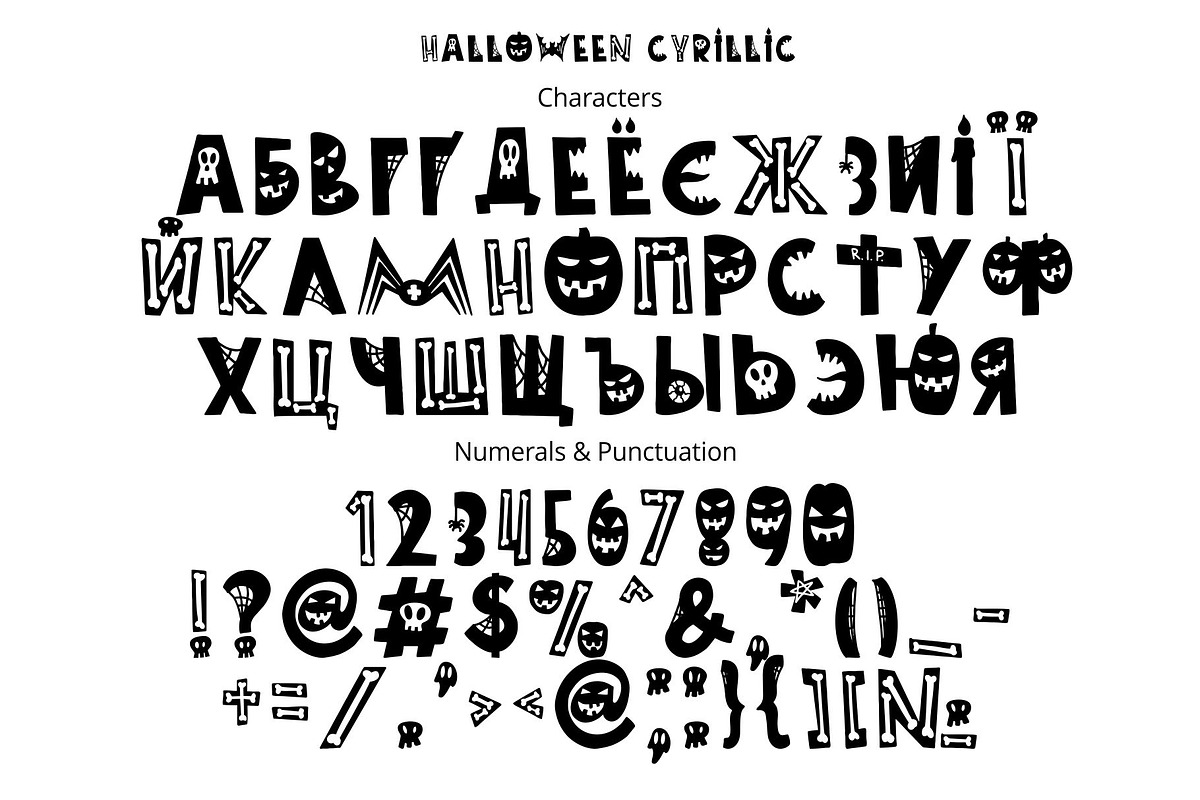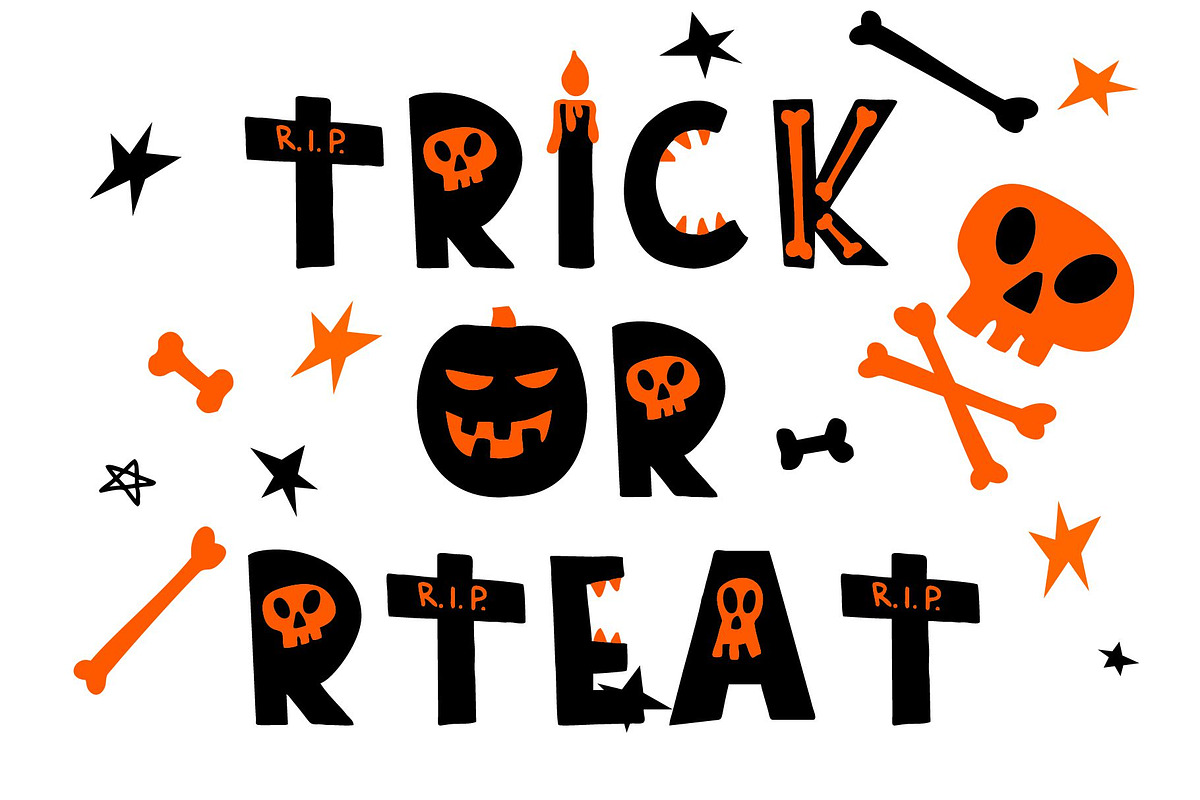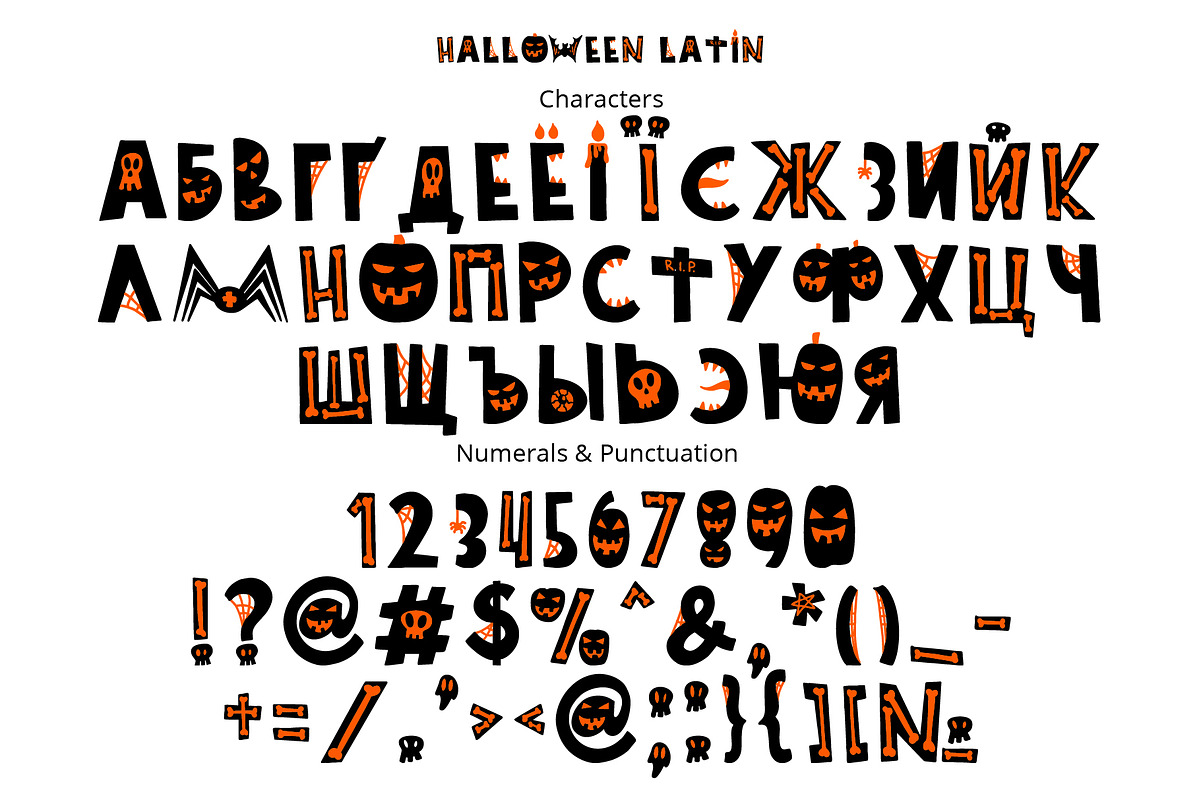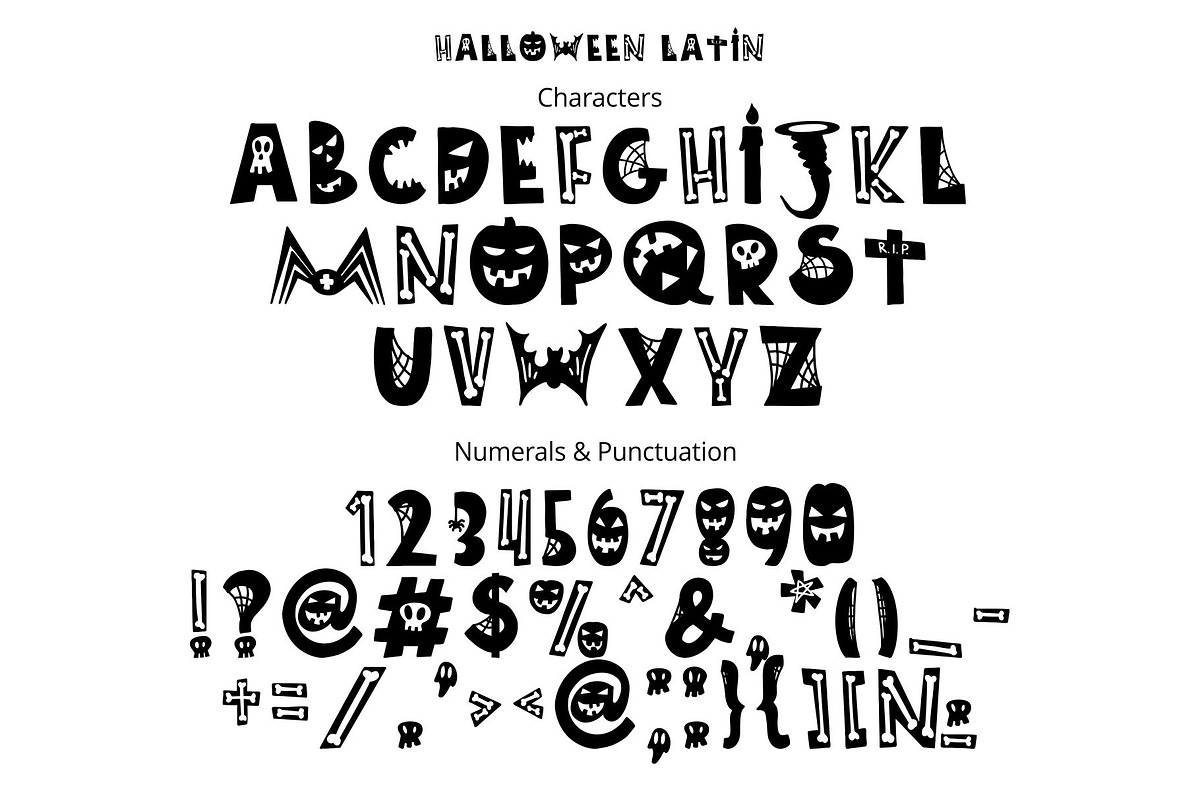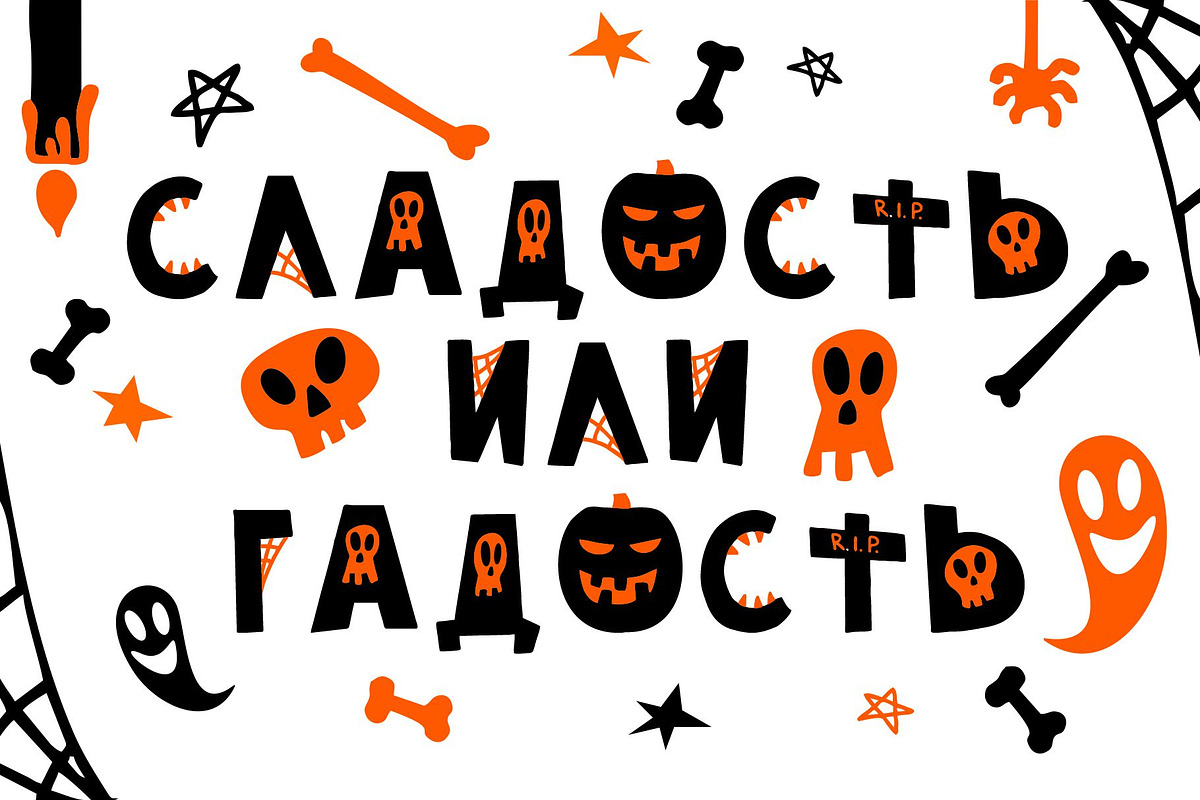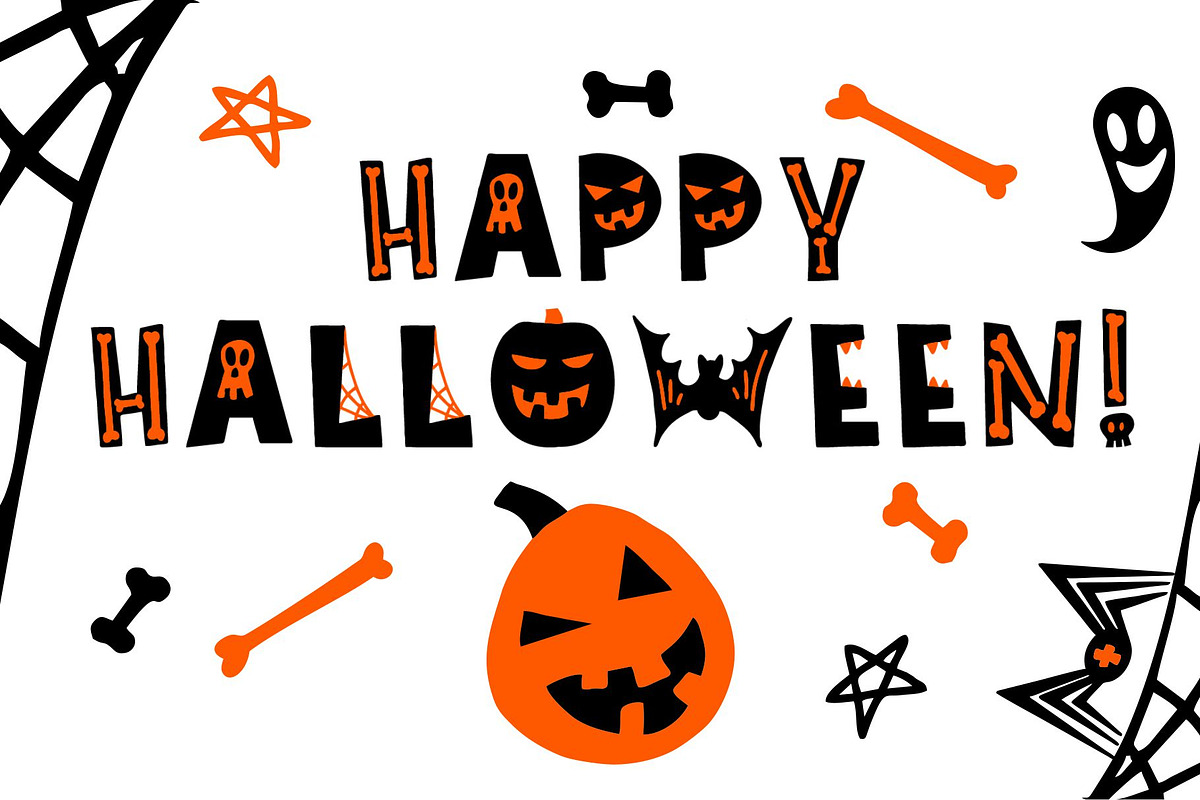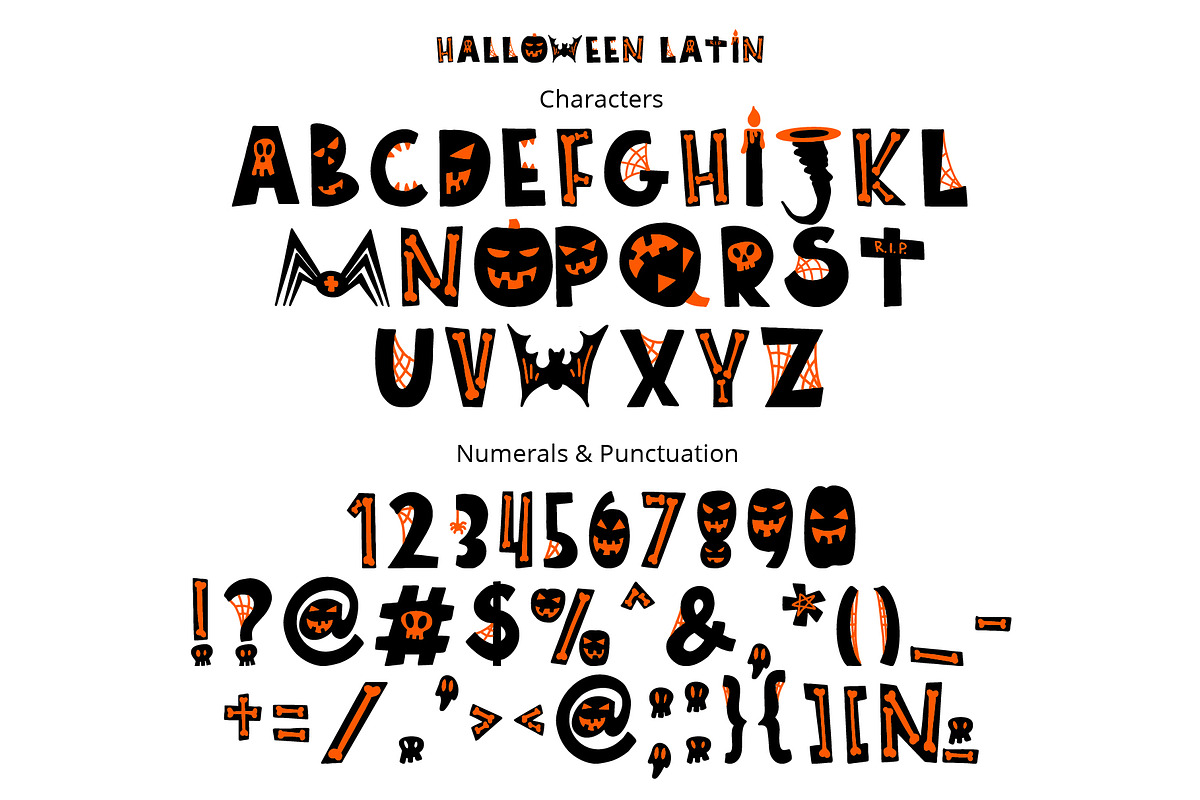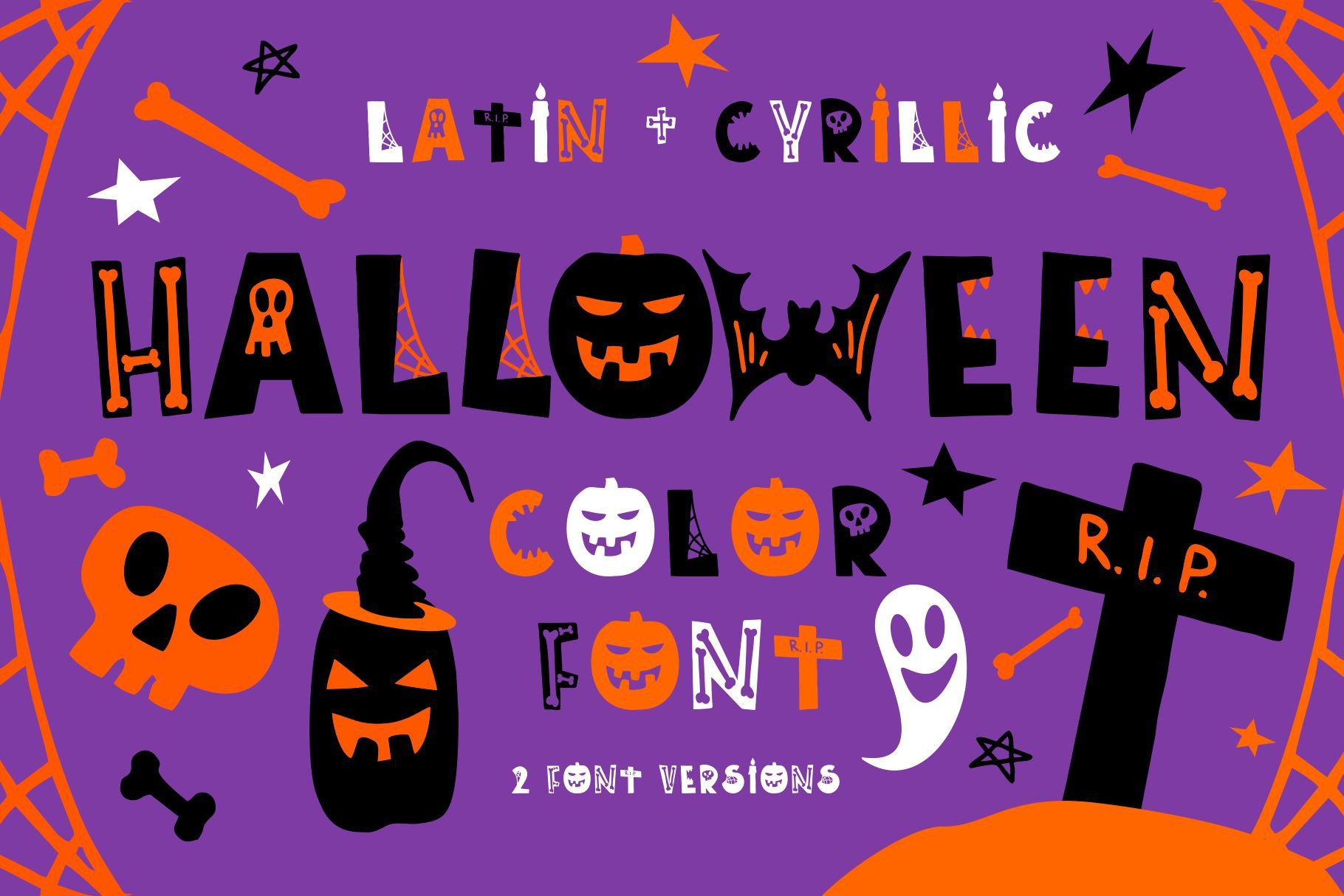
Halloween color font
Halloween - color OpenType-SVG font with Latin and Cyrillic letters! It has two versions - color and classic versions. It's a fun and cute Halloween font! This font work nicely for all sorts of things including t-shirt design, typographic art, social media images and so much more!
Standard characters A-Z, 0-9, and punctuation + classic version for the Latin Basic and Western European set, Cyrillic А-Я set + Ukrainian letters. Thanks and Enjoy!